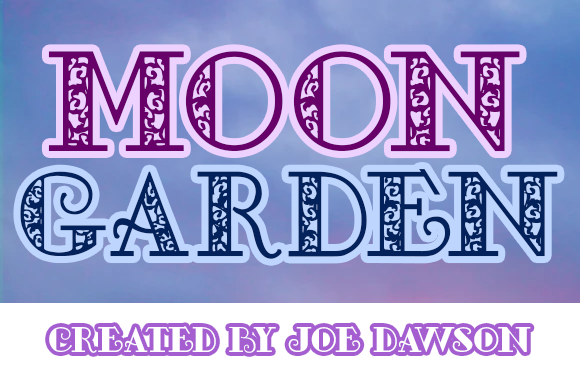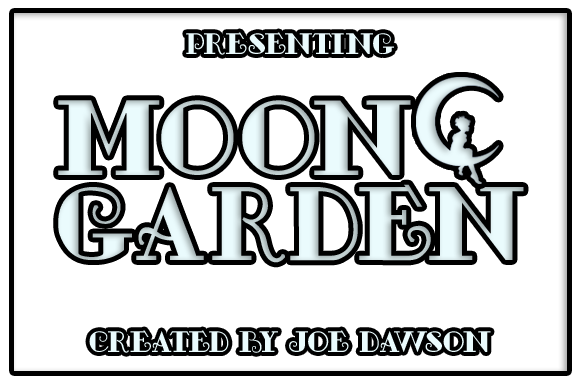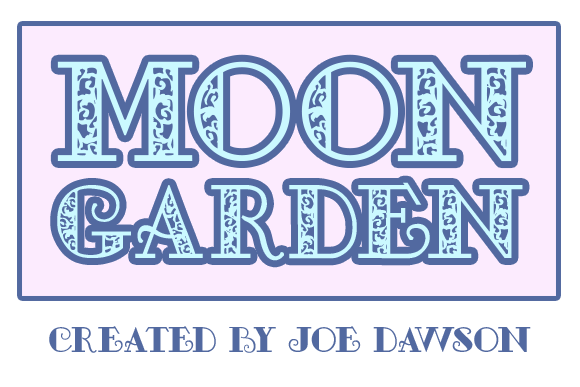
Introduction to Moon Garden Font
As a designer, there’s nothing quite like the thrill of stumbling upon a hidden gem – a font that transports you to a bygone era and sparks a wave of creative inspiration. For me, that moment came when I discovered the enchanting Moon Garden Font. Its intricate design and style options seemed to whisper tales of a vintage past, begging to be used in a project that would bring it to life.
With its unique blend of elegance and whimsy, the Moon Garden Font has become an invaluable resource for designers seeking to add a touch of nostalgia to their high-quality creative projects. Whether you’re crafting a retro-inspired poster or designing a website with a vintage flair, this font is sure to be a game-changer. And the best part? It’s available for free download, making it an accessible design resource for creatives of all levels.
Key Features of Moon Garden Font
- High-quality, elegant design suitable for creative projects and artistic endeavors.
- Unique, hand-drawn style with a transparent background, allowing for versatility and flexibility in your design.
- Perfect for use in creative projects, such as invitations, greeting cards, and other artistic endeavors, where a touch of elegance is required.
- Comes with a comprehensive character set, including uppercase and lowercase letters, numbers, and punctuation marks.
Honest Review: Moon Garden Font
I recently stumbled upon the Moon Garden Font, and I must say it’s a lovely addition to my design resource library. The font is free to download, making it an excellent option for creatives on a budget. The high quality of the font is evident, with smooth lines and a charming aesthetic.
The transparent background of the font makes it easy to use in various creative projects, from digital art to print design. The font’s unique design is perfect for those looking for a distinctive touch in their work.
- High-quality design with smooth lines
- Unique design for creative projects
- May not be suitable for formal or corporate designs
- Limited character set, may not include all necessary symbols
Overall, I’m impressed with the Moon Garden Font. While it may have some limitations, its unique design and high quality make it a valuable addition to any design library. I’d recommend it for creatives looking for a distinctive touch in their work.
Tips for Getting the Most Out of Moon Garden Font
For the best results, use the Moon Garden Font in conjunction with a high contrast background to make the text stand out. You can also experiment with different font sizes and styles to create a unique and eye-catching design.
The Moon Garden Font is a versatile design resource that can be used in a variety of creative projects, including wedding invitations, greeting cards, and social media graphics. Its high quality and transparent background make it a great choice for designers looking for a unique and professional look.